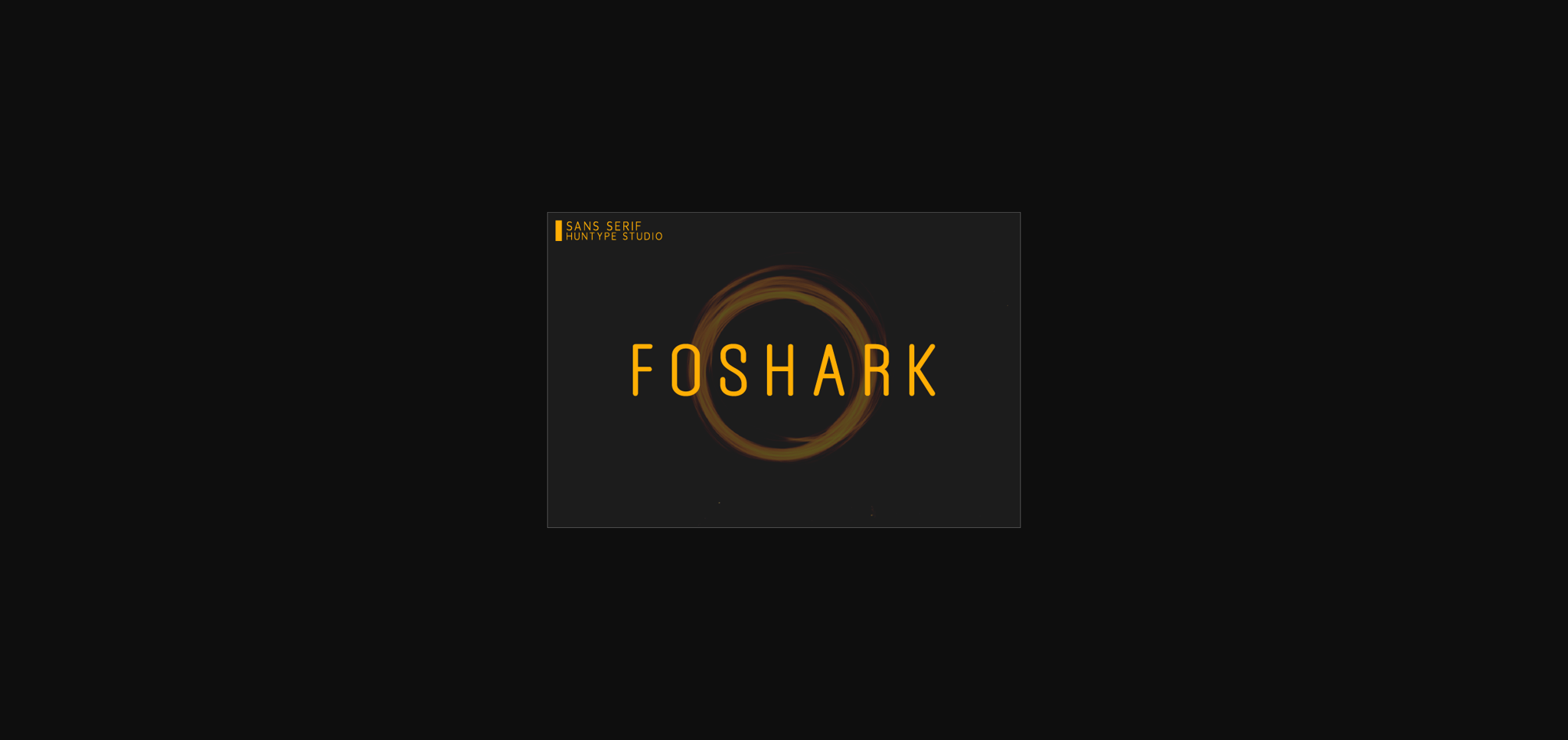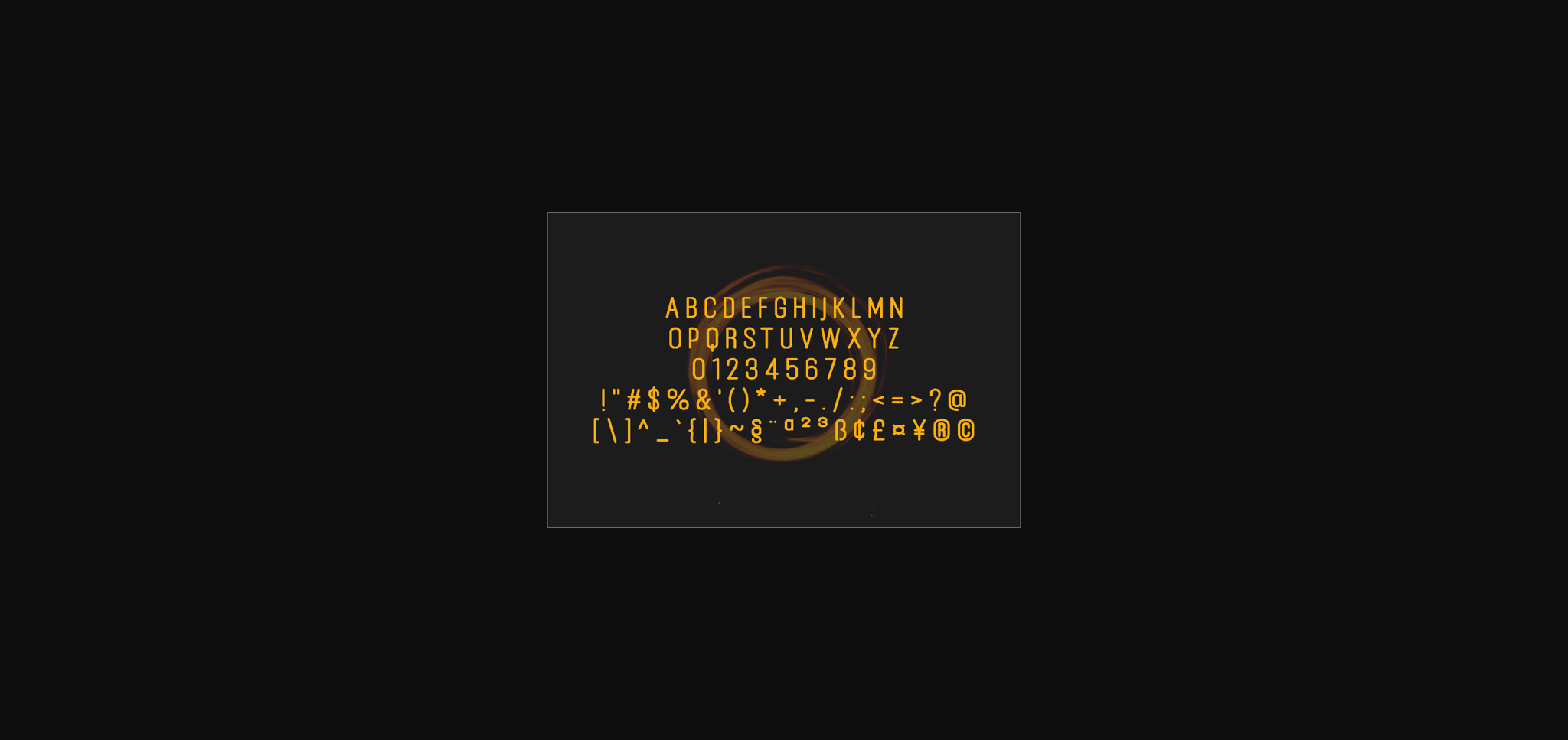
Foshark Font
About Foshark Font
Foshark is a great sans serif font. It features extended characters that will look particularly adept when used in logos, branding, packaging design, and much more. This masterfully designed Foshark is a true must-have.